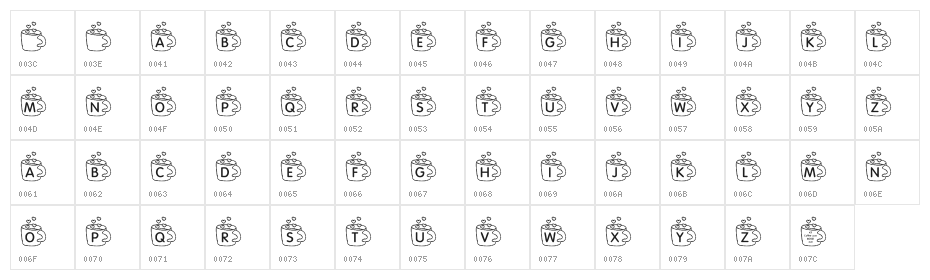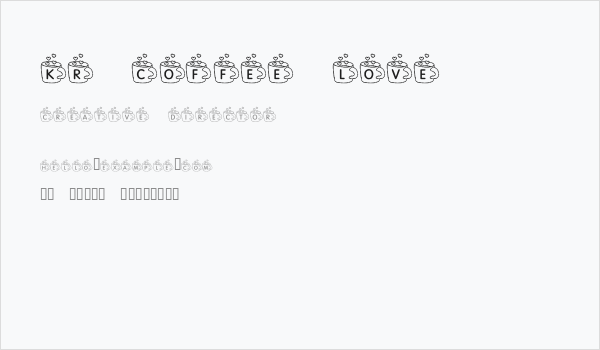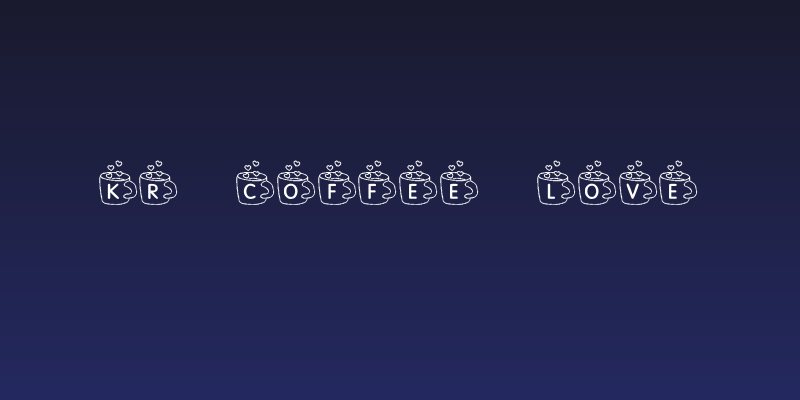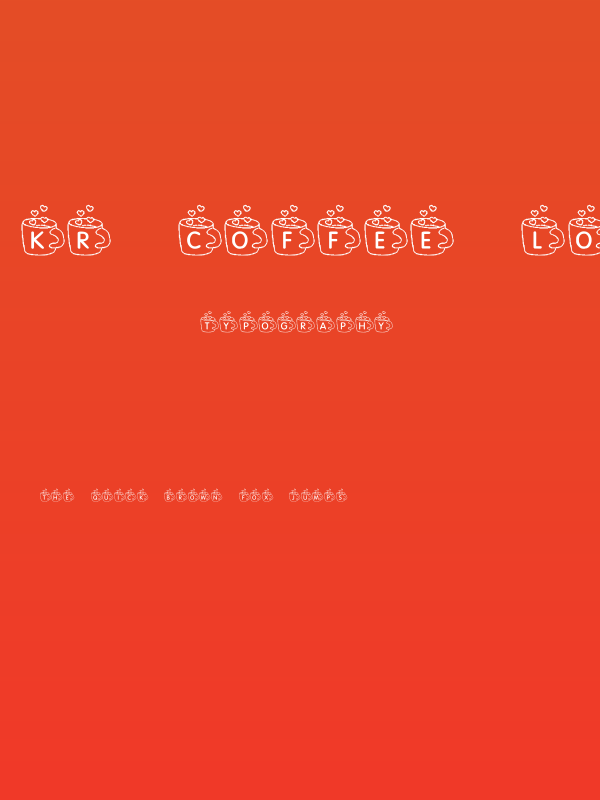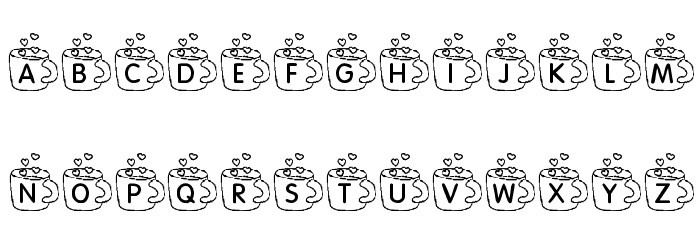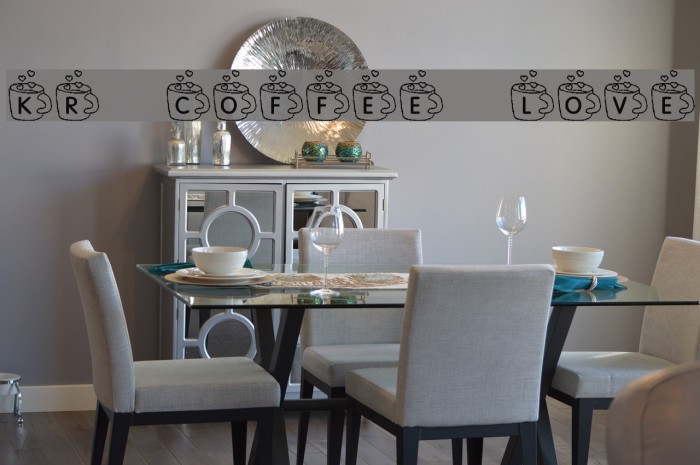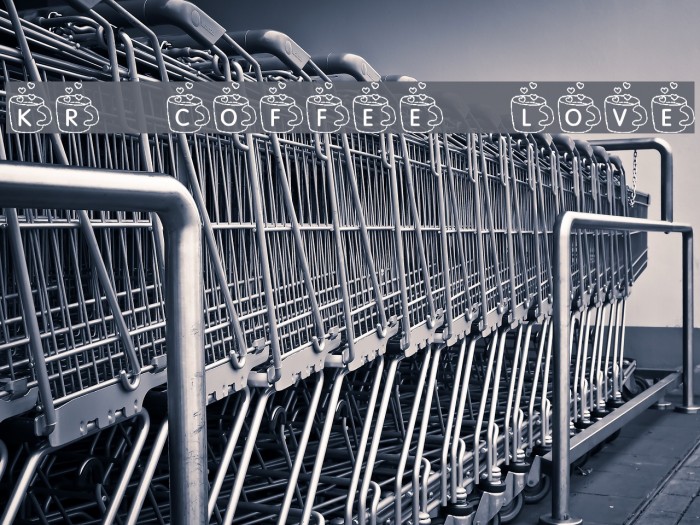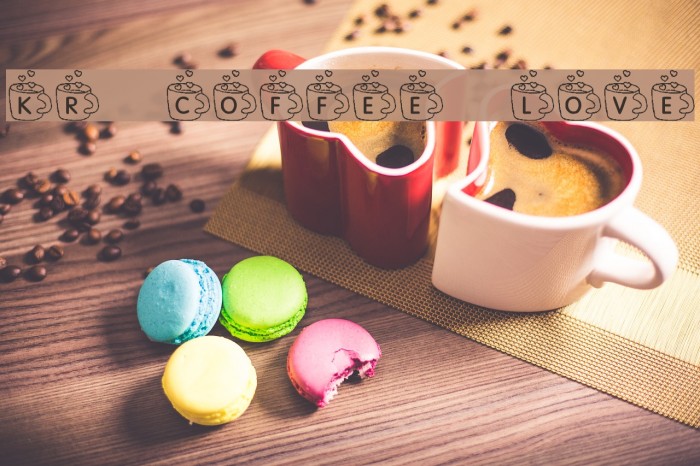
KR Coffee Love Font
KR Coffee Love Description
This playful and whimsical font features each letter encapsulated within a charming coffee cup design, complete with steam and heart motifs. The letters are bold and clear, making them easily readable despite the decorative elements. The overall style is fun and lighthearted, perfect for projects that aim to convey warmth and friendliness. The consistent design across all characters ensures a cohesive look, while the unique coffee cup theme adds a touch of creativity and novelty.
| Proposed Projects | Ideal for coffee shop branding, playful greeting cards, themed party invitations, or any project that seeks to evoke a sense of warmth and coziness. |